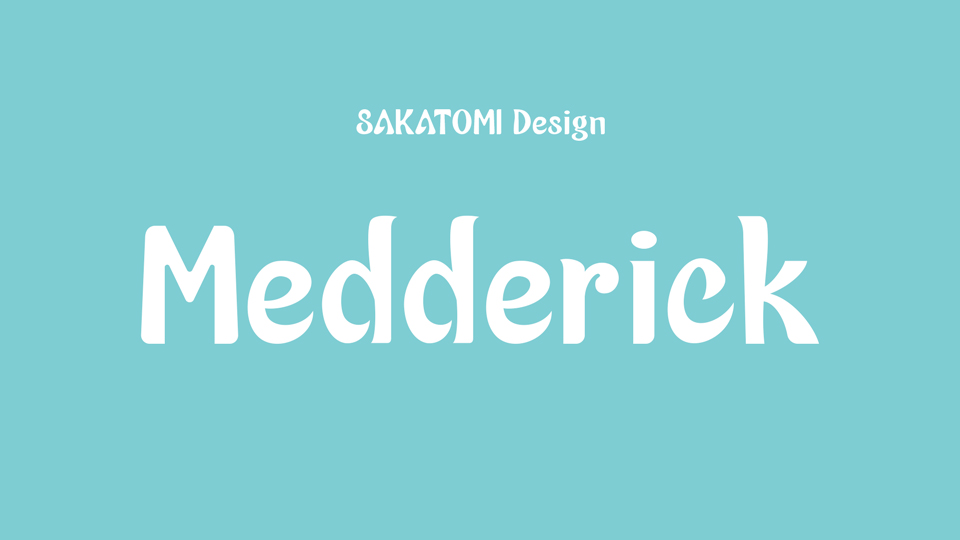
Download Medderick font, a hand lettered typeface with casual, airy counters and friendly terminals. With its soft character, Medderick is perfect for branding and packaging, books and short texts.
Designer: SAKATOMI Design